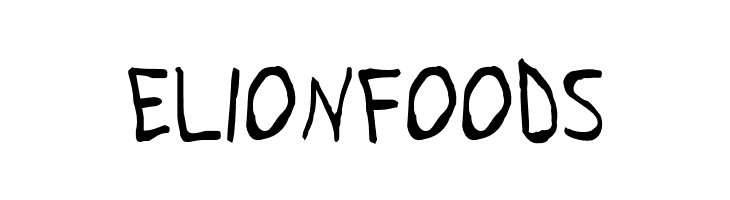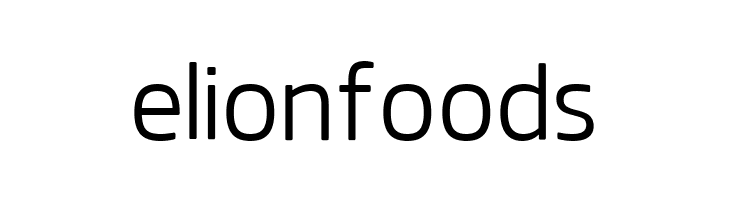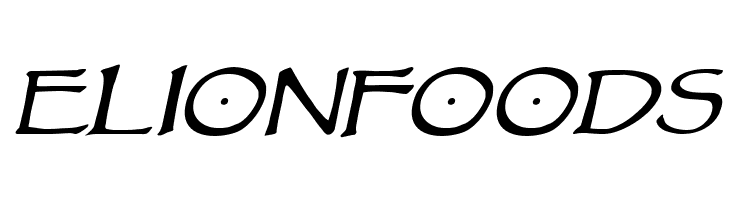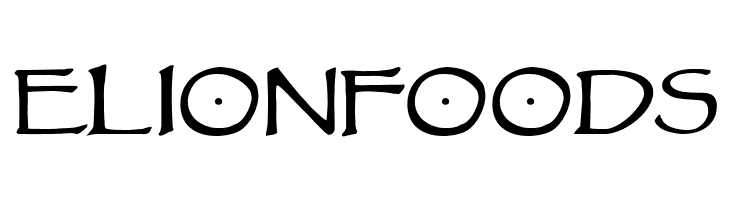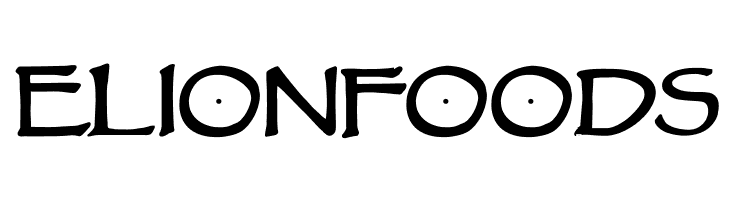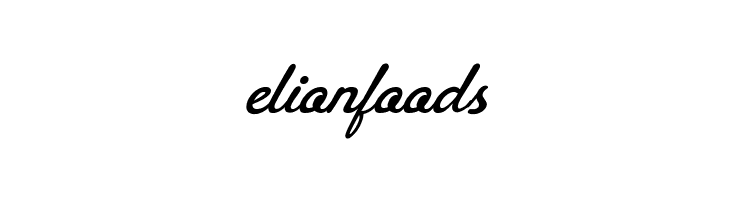
A dynamic, italicized font with sharp, angular strokes and a hand-drawn quality.
A whimsical, hand-drawn font with playful and irregular strokes.
A bold, hand-drawn font with irregular strokes and a playful, edgy style.
A dynamic and elegant script font with flowing, cursive letterforms.
A bold, playful font with rounded, bubble-like characters.
A modern serif font with unique serifs and a touch of elegance.
Highly decorative ornamental frames and boxes.
A playful, handwritten font with a whimsical and friendly style.
A playful, hand-drawn font with irregular, organic lines.
A bold, hand-drawn font with a playful and energetic style.
A bold, expressive font with a hand-painted, artistic style.
A bold, condensed typeface with a modern and clean design.
Extra bold and condensed font with a modern, impactful style.
A modern, extra-condensed sans-serif font with semi-bold weight and clean design.
A condensed, extra bold sans-serif font with a modern and impactful style.
A modern, bold sans-serif font with a semi-condensed style.
A clean, modern, semi-condensed font with semi-bold weight, ideal for professional use.
A modern, condensed sans-serif font with medium weight and excellent readability.
A clean, modern sans-serif font with a semi-condensed, light structure.
A bold, semi-condensed font with a modern and robust style.
A modern, extra light, condensed typeface with high legibility.
A clean, modern sans-serif font with excellent readability.
A modern, semi-condensed sans-serif font with light weight and low contrast.
A modern, light, and minimalistic sans-serif font with low contrast.
A classic serif font with elegant and legible numerals and special characters.
A bold, extra-condensed font ideal for impactful headlines.
A bold, condensed font with a modern and robust style.
A bold, extra-condensed sans-serif font ideal for impactful headlines.